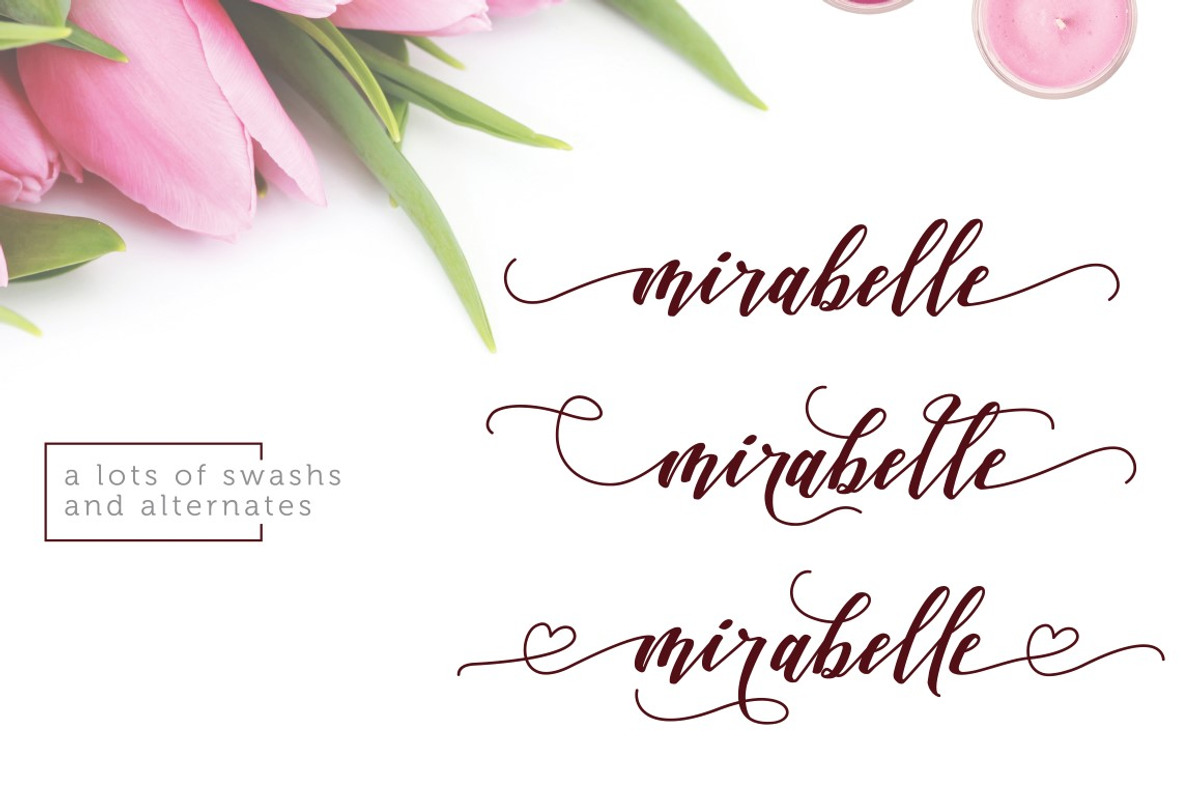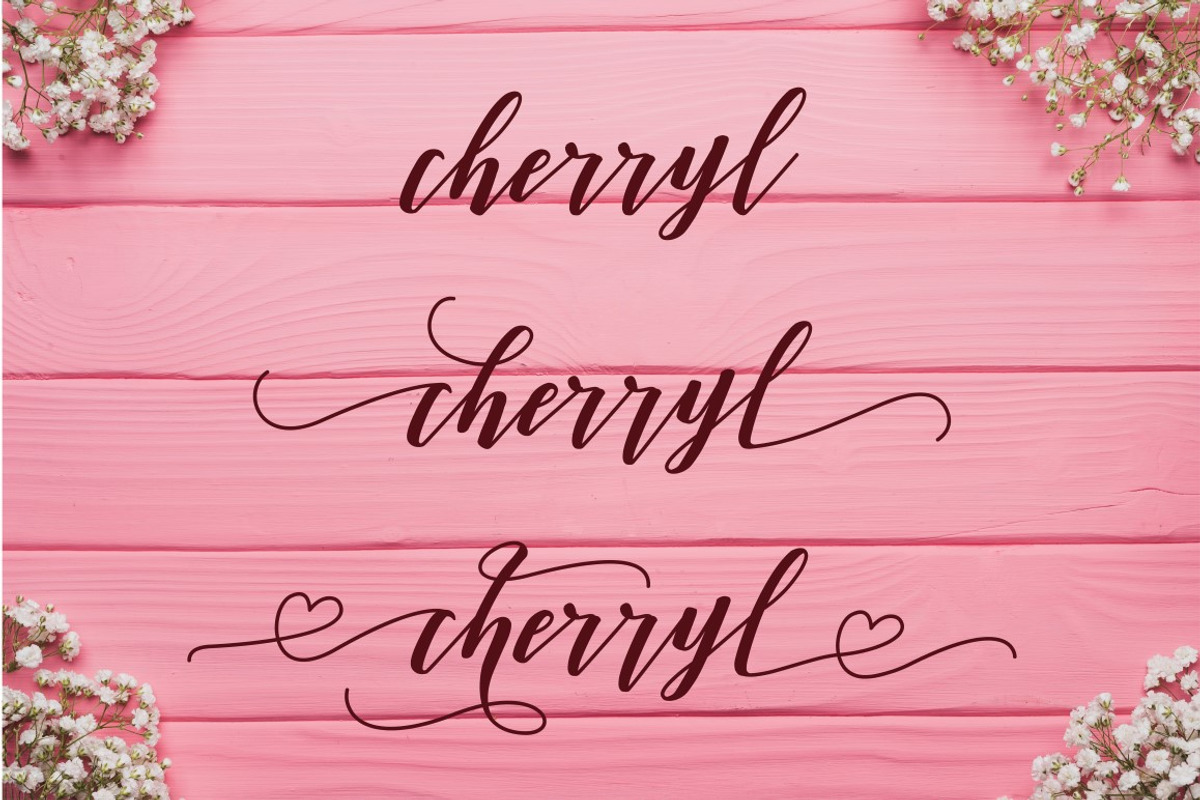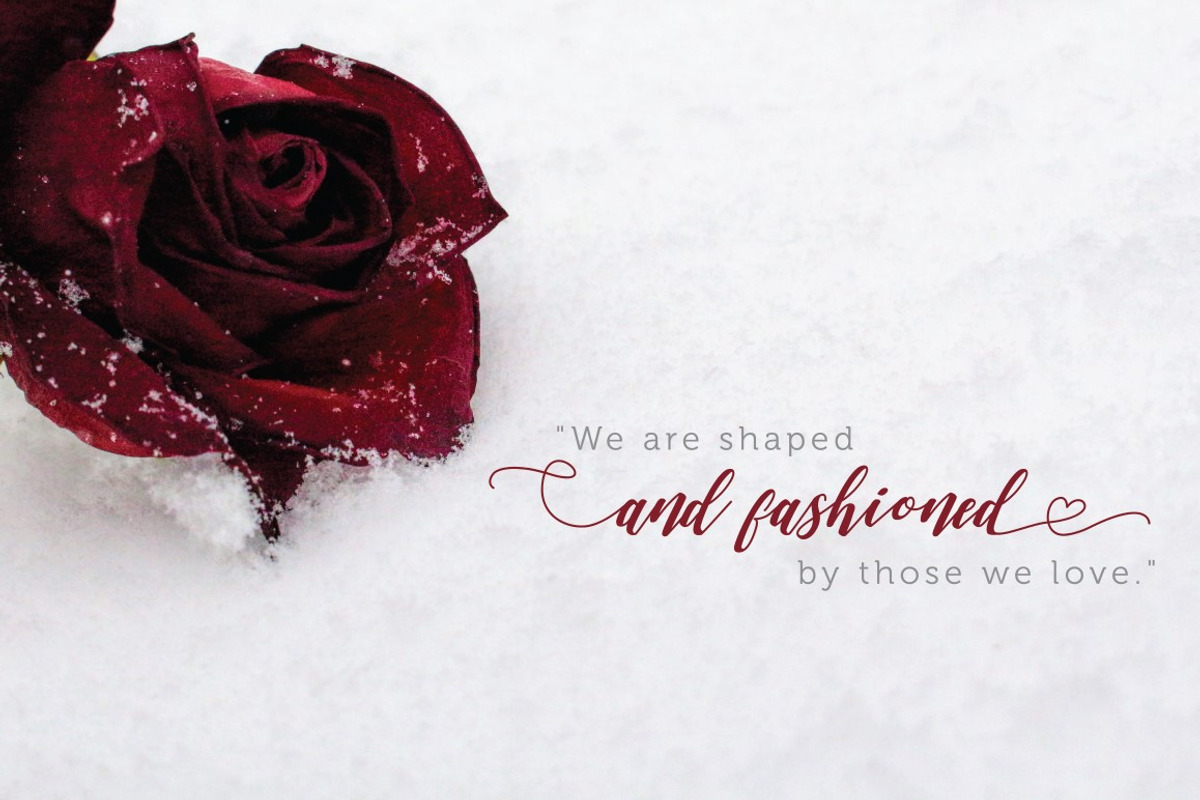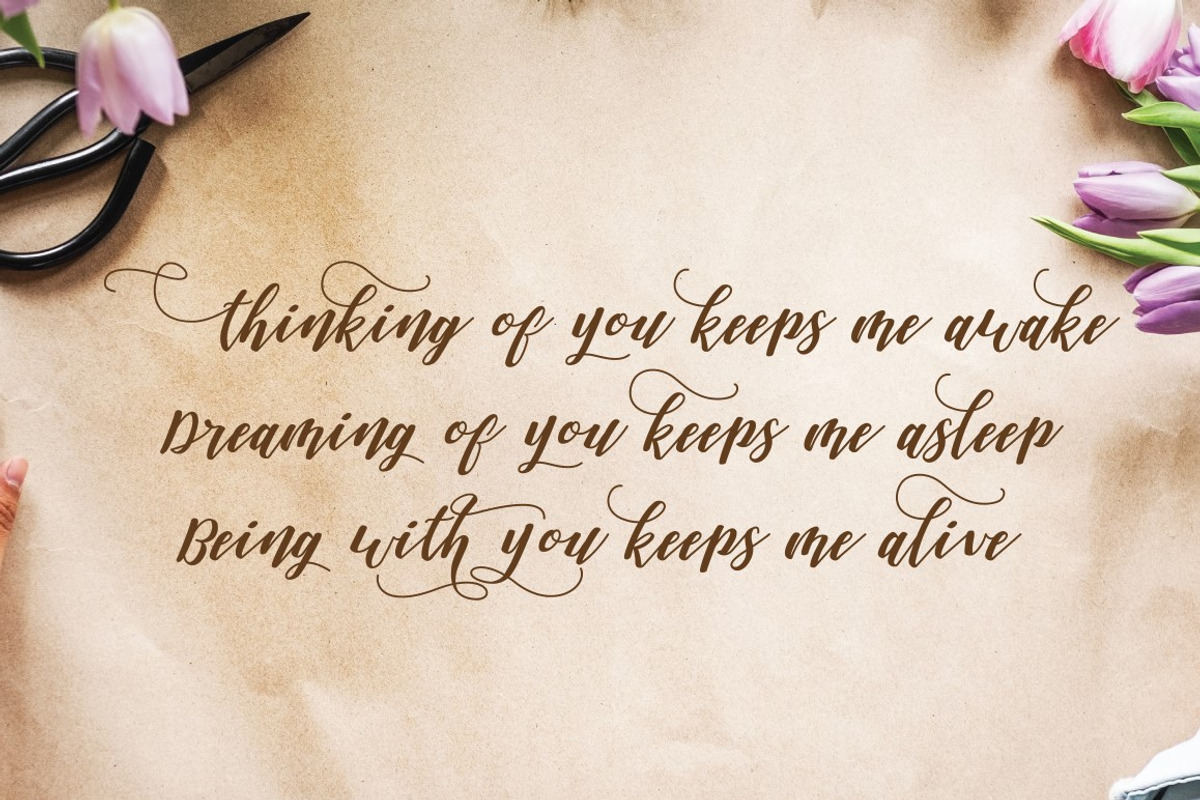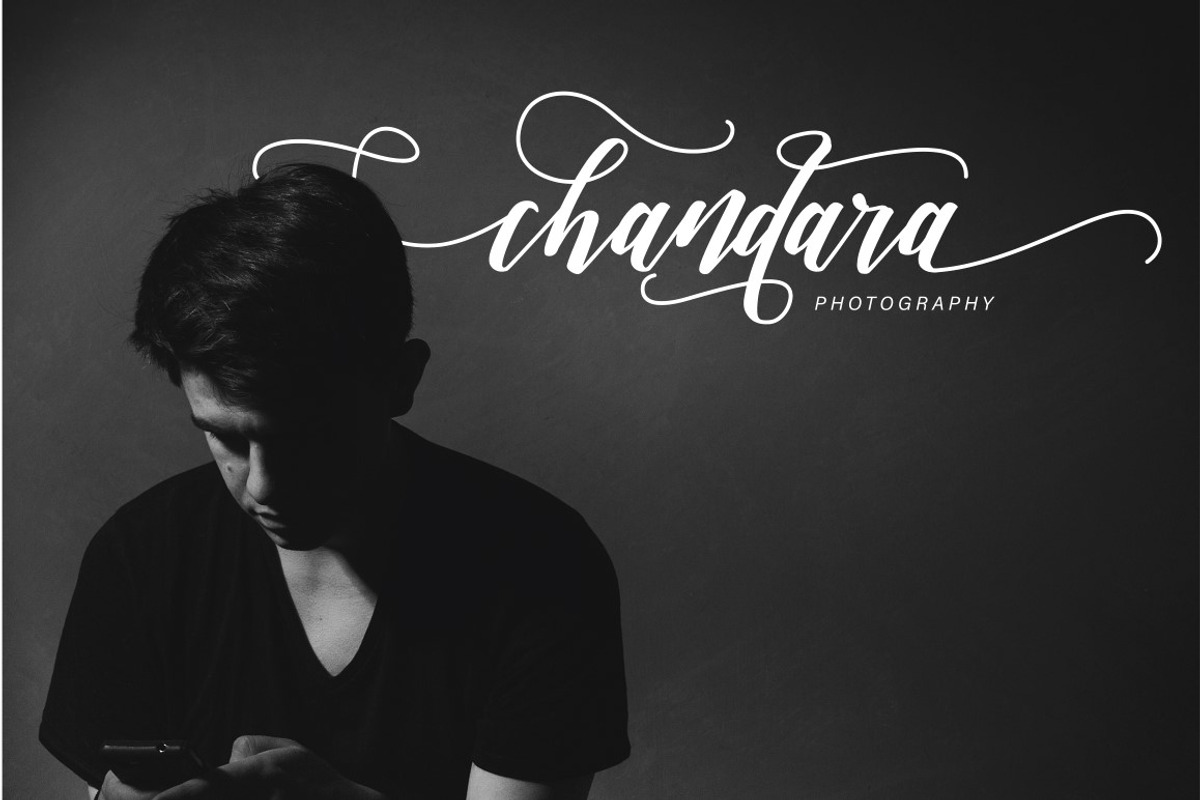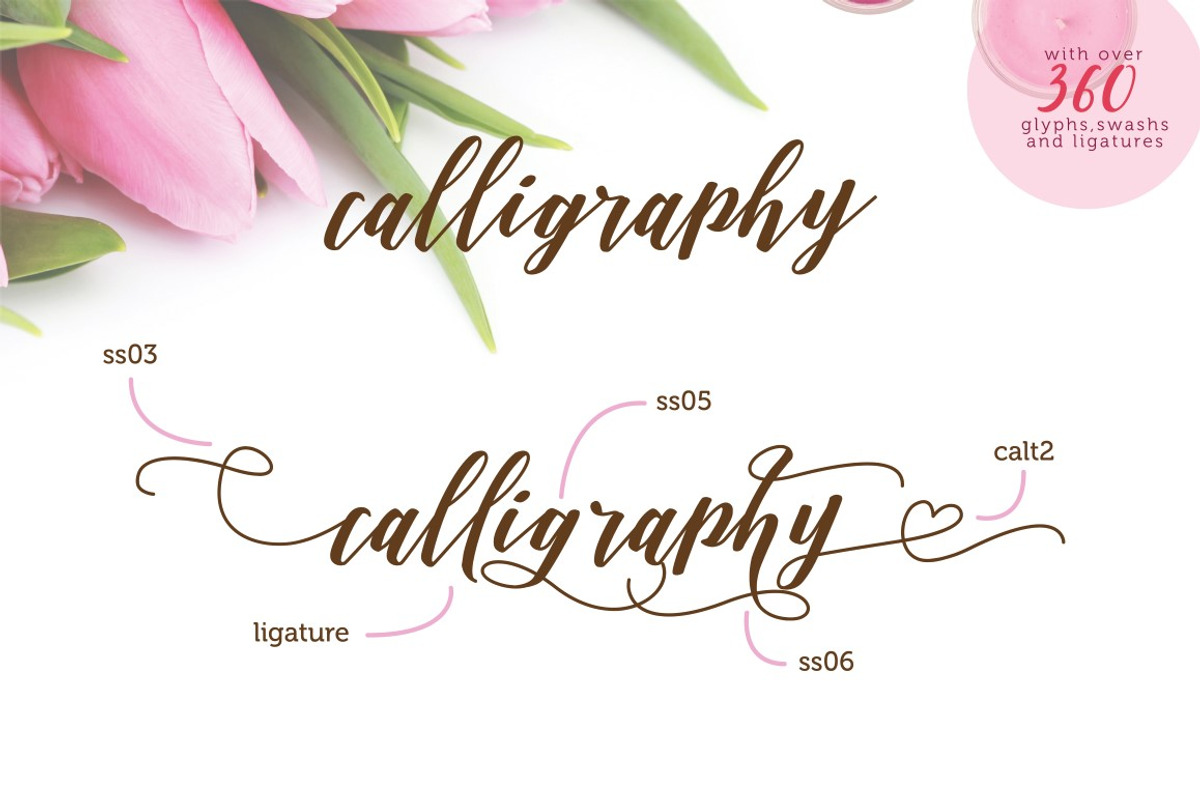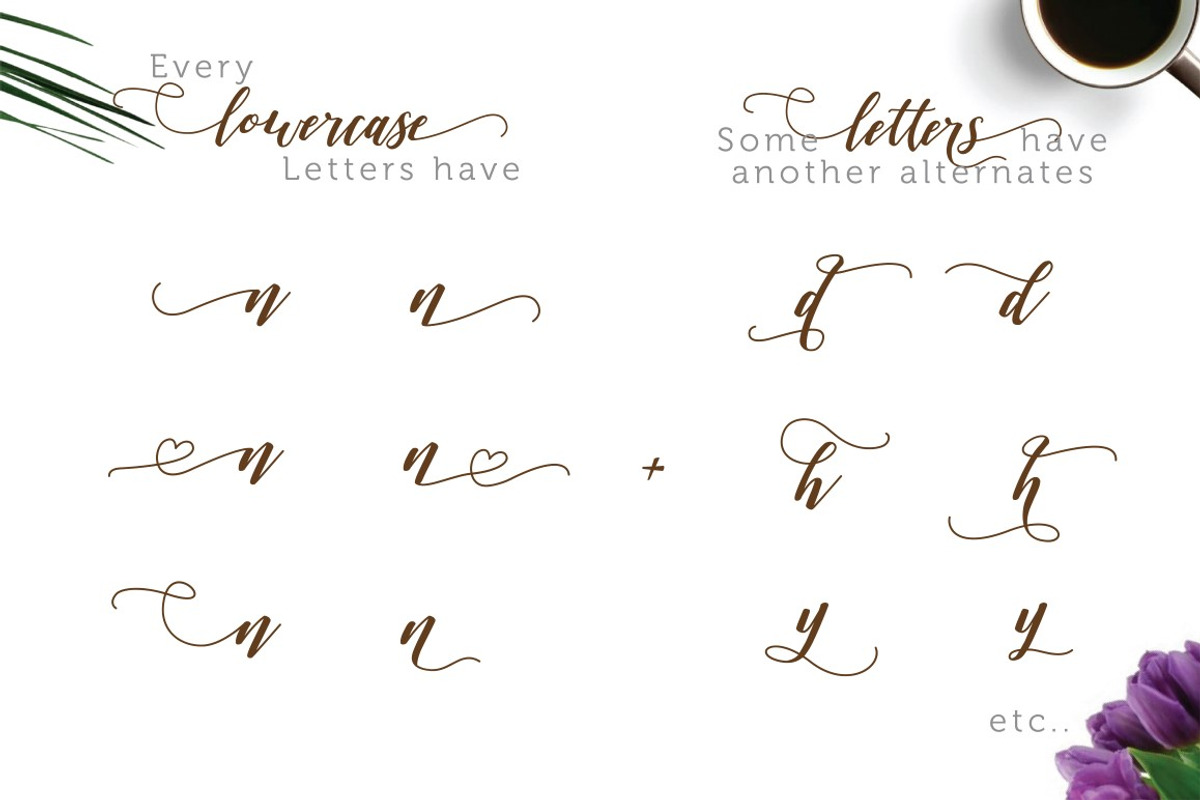
Daniesha - Romantic Font Script
Daniesha is a new fresh, unique & modern script with a handmade calligraphy style and decorative characters, a unique blend of classic and modern fonts.
Daniesha Font is suitable for wedding, quote, greeting cards, bussiness card, event, invitation, escort card, table number, header menu, display, logo, blog slider, branding material, custom address, stamp, packing, posters, and more!
Includes a lot of alternative and beautiful swirls in fonts including styles, Alternates, Swashes, etc. Open Type features are accessible using Open Type savvy programs such as Adobe Illustrator CS,Adobe Photoshop, Adobe Indesign & CorelDraw X6-X7, Microsoft Word and other programs. And this font has unicode PUA code (font with special code). So that all alternative characters can be easily accessed by craftsmen or designers.
Love swashes alternate
- Includes a lot of alternative and beautiful swirls in fonts including styles, Alternates, Swashes, etc.